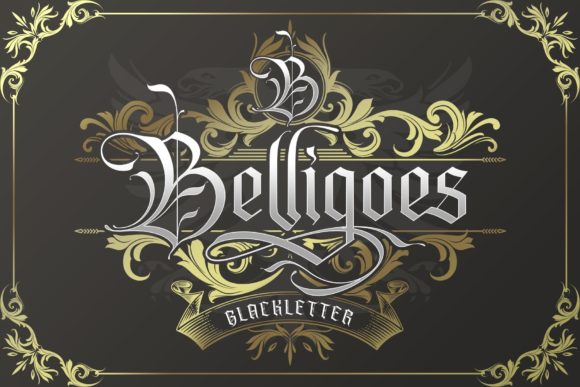
Belligoes Font
Prepare yourself for Belligoes, the blackletter font that exudes captivating charm and mesmerizing elegance. Crafted by the skilled hands of Alit Design, this font family is a true masterpiece of digital calligraphy, tailored specifically to ignite the creative spark within you.
Belligoes boasts a captivating presence that commands attention with its bold strokes and intricate flourishes. Each letterform is meticulously crafted to evoke a sense of timeless beauty, making it the perfect choice for those seeking a font that combines tradition with a touch of modernity. Its blackletter roots lend it an air of sophistication, while its contemporary touches ensure it remains fresh and relevant in today's design landscape.
Beyond its aesthetic appeal, Belligoes is a remarkably versatile font, effortlessly adapting to a wide range of design projects. Its bold presence makes it ideal for logos, branding, and headlines that demand instant recognition. Yet, its intricate details and flowing swashes lend themselves beautifully to invitations, wedding stationery, and other designs where elegance and charm are paramount.
But what truly sets Belligoes apart is its unwavering commitment to user-friendliness. This font is fully PUA encoded, granting you effortless access to its complete repertoire of glyphs and swashes. No longer will you be hindered by technical limitations; with Belligoes, your creativity knows no bounds.
Whether you're a seasoned designer or just starting your creative journey, Belligoes is the perfect font to elevate your designs to new heights. Its versatility, captivating beauty, and user-friendly nature make it an indispensable tool for any designer's arsenal.
So, let your imagination soar and embrace the captivating allure of Belligoes. Unleash your creativity and witness the transformative power of this extraordinary font family. With Belligoes by your side, every design project becomes an unforgettable masterpiece.